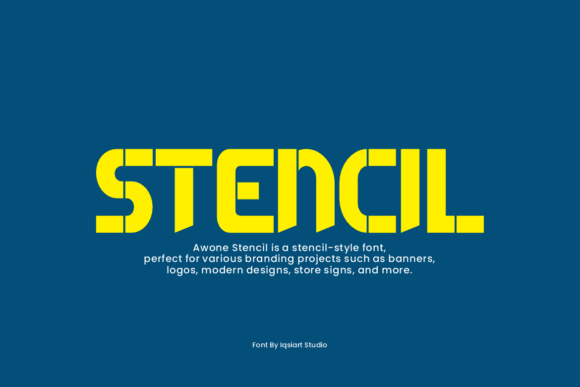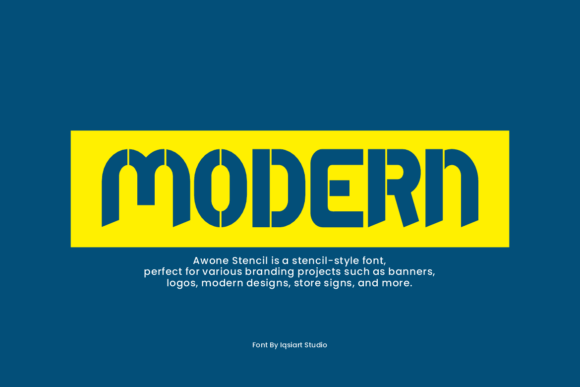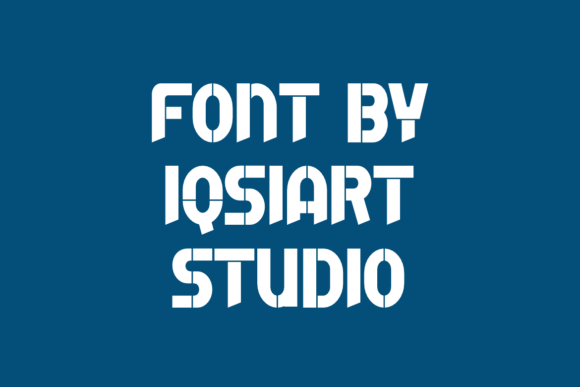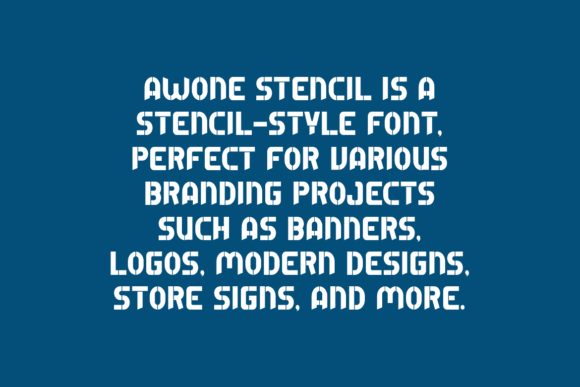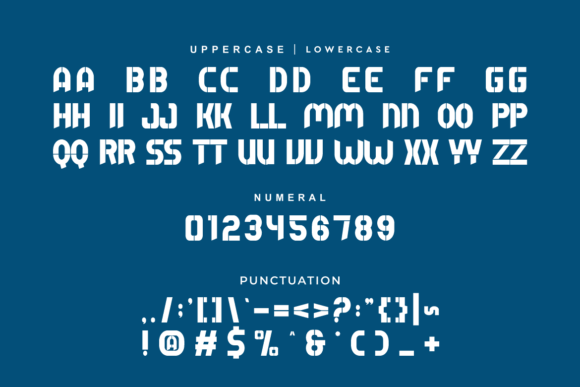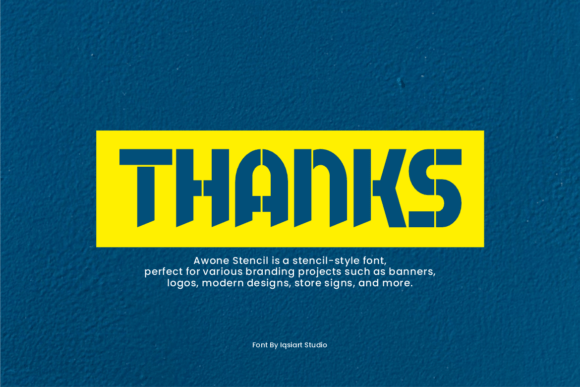
Have you ever stared at a blank canvas, feeling the creative juices flow, but struggling to find the perfect font to bring your idea to life? You’re not alone. We’ve all been there, searching high and low for that one font that will take our design to the next level.
Enter the Awone Stencil Font, a cool display font that’s sure to add some excitement to your creative endeavors. This versatile font is perfect for designers looking to add a touch of edginess to their projects, from posters and flyers to digital graphics and social media posts.
With its unique stencil design, the Awone Stencil Font is a valuable addition to any designer’s toolkit. Whether you’re a seasoned pro or just starting out, this font is sure to help you create eye-catching designs that stand out from the crowd.
Awone Stencil Font Key Features
- Unique Characteristics: Distinctive stencil design, ideal for retro and industrial-themed projects
Awone Stencil Font Review
As a designer, I was excited to dive into the Awone Stencil Font and see what it has to offer. After some experimentation, here are my thoughts.
- Unique Character: The Awone Stencil Font has a distinctive, retro-inspired aesthetic that can add a touch of nostalgia to your designs.
- Easy to Read: Despite its stencil design, the font is surprisingly easy to read, making it suitable for body text as well as headlines.
- High-Quality Vectors: The font comes with high-quality vector files, making it easy to scale and manipulate without losing any of its integrity.
- Limited Character Set: The font has a relatively limited character set, which may make it difficult to use for more complex designs or languages that require a wide range of characters.
- Not Ideal for Small Text: Due to its stencil design, the font may not be the best choice for small text, as the lines can become difficult to read.
Overall, the Awone Stencil Font is a solid addition to any designer’s toolkit. While it may have some limitations, its unique aesthetic and ease of use make it a great choice for designers looking to add some retro flair to their projects.
Some common use cases for the Awone Stencil Font include:
– Designing posters and flyers for events or products.
– Creating logos or branding materials.
– Designing social media graphics or ads.